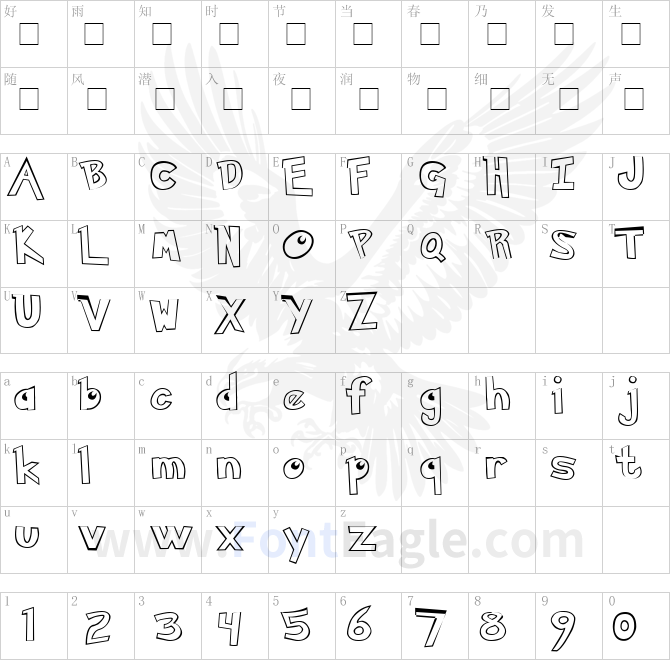
- Font name:Pokemon Hollow
- Font Subfamily ID:FontMonger:Pokemon Hollow Normal
- Font Full Name:Pokemon Hollow Normal
- Postscript:PokemonHollowNormal